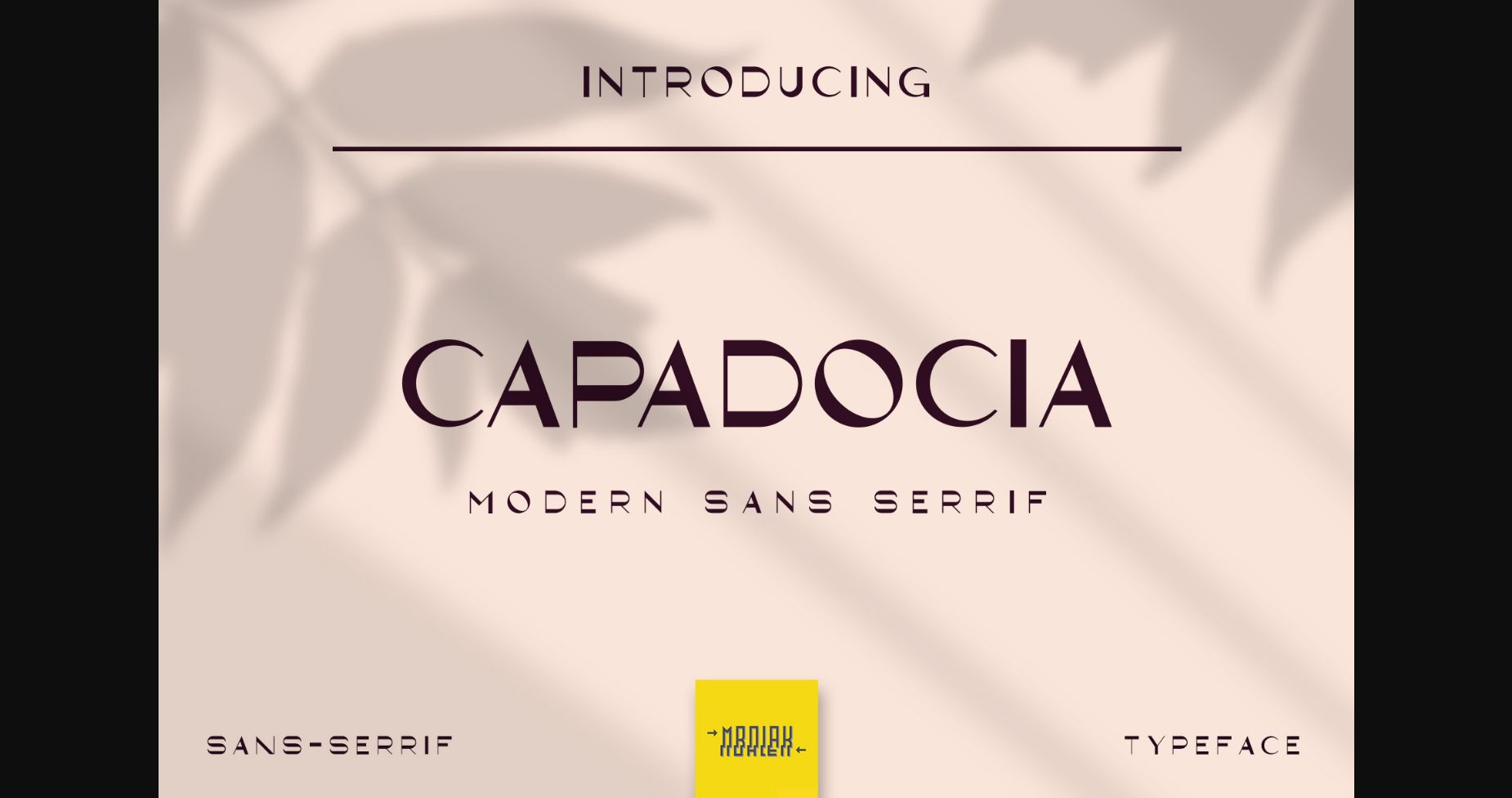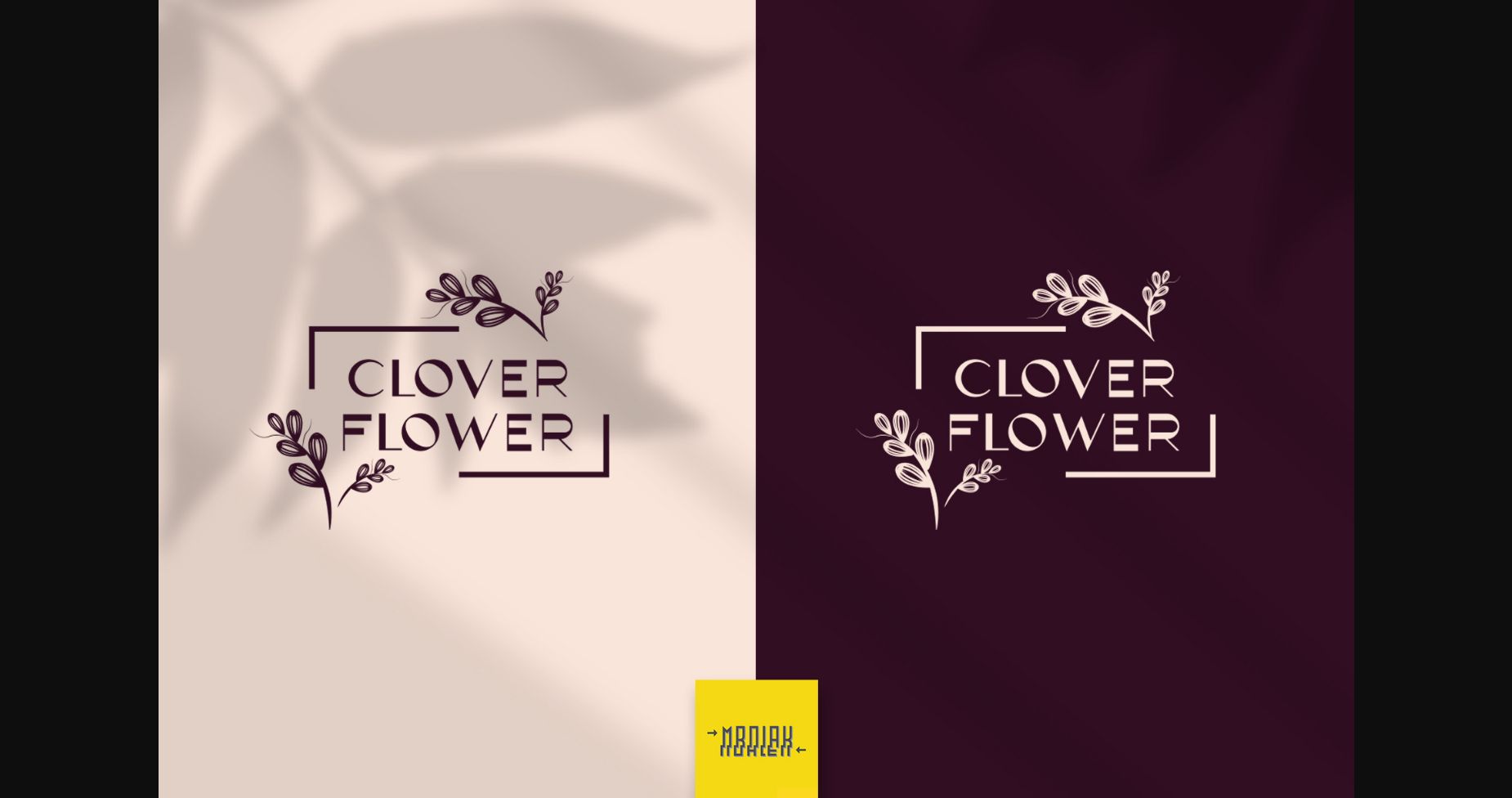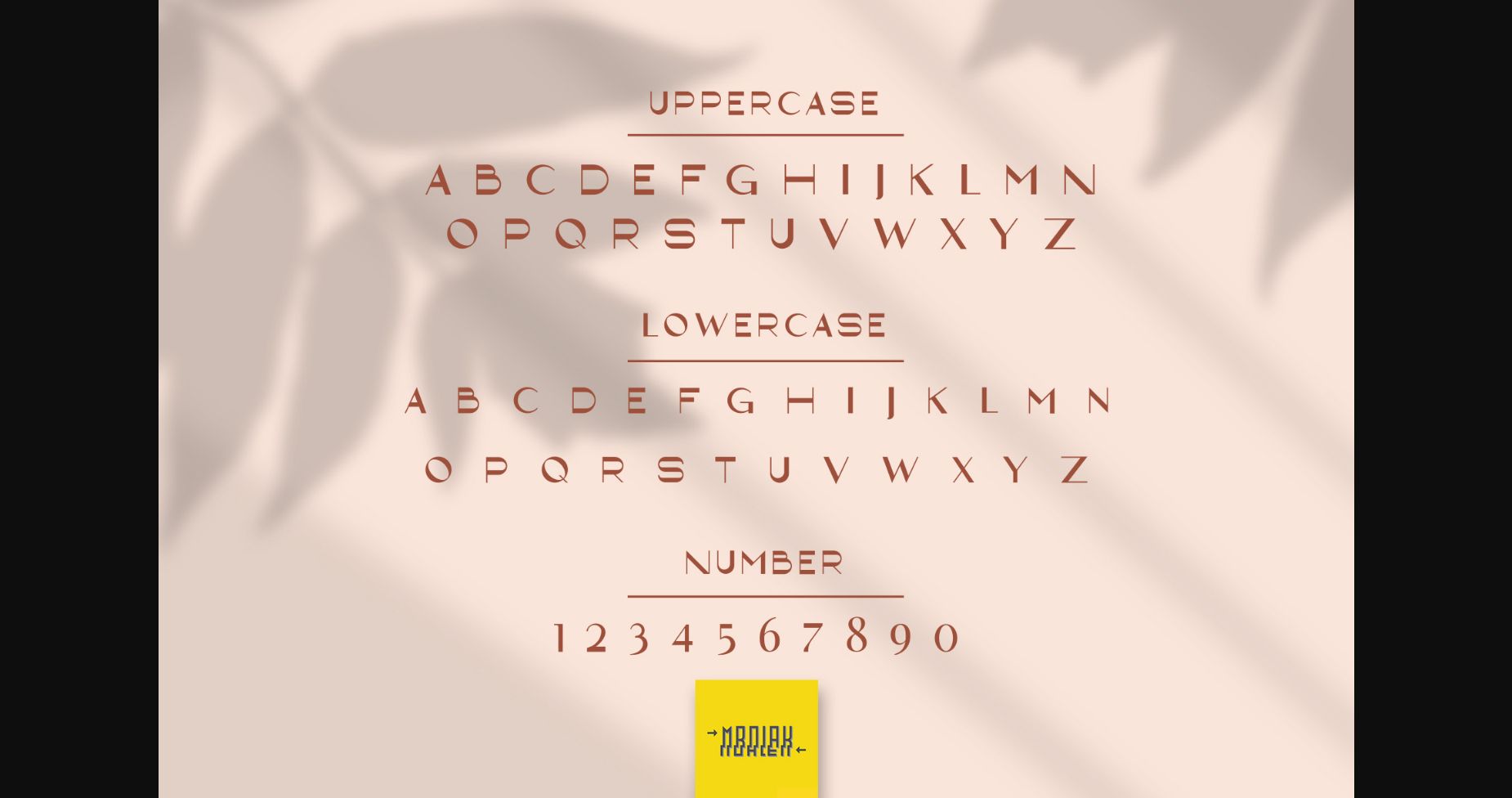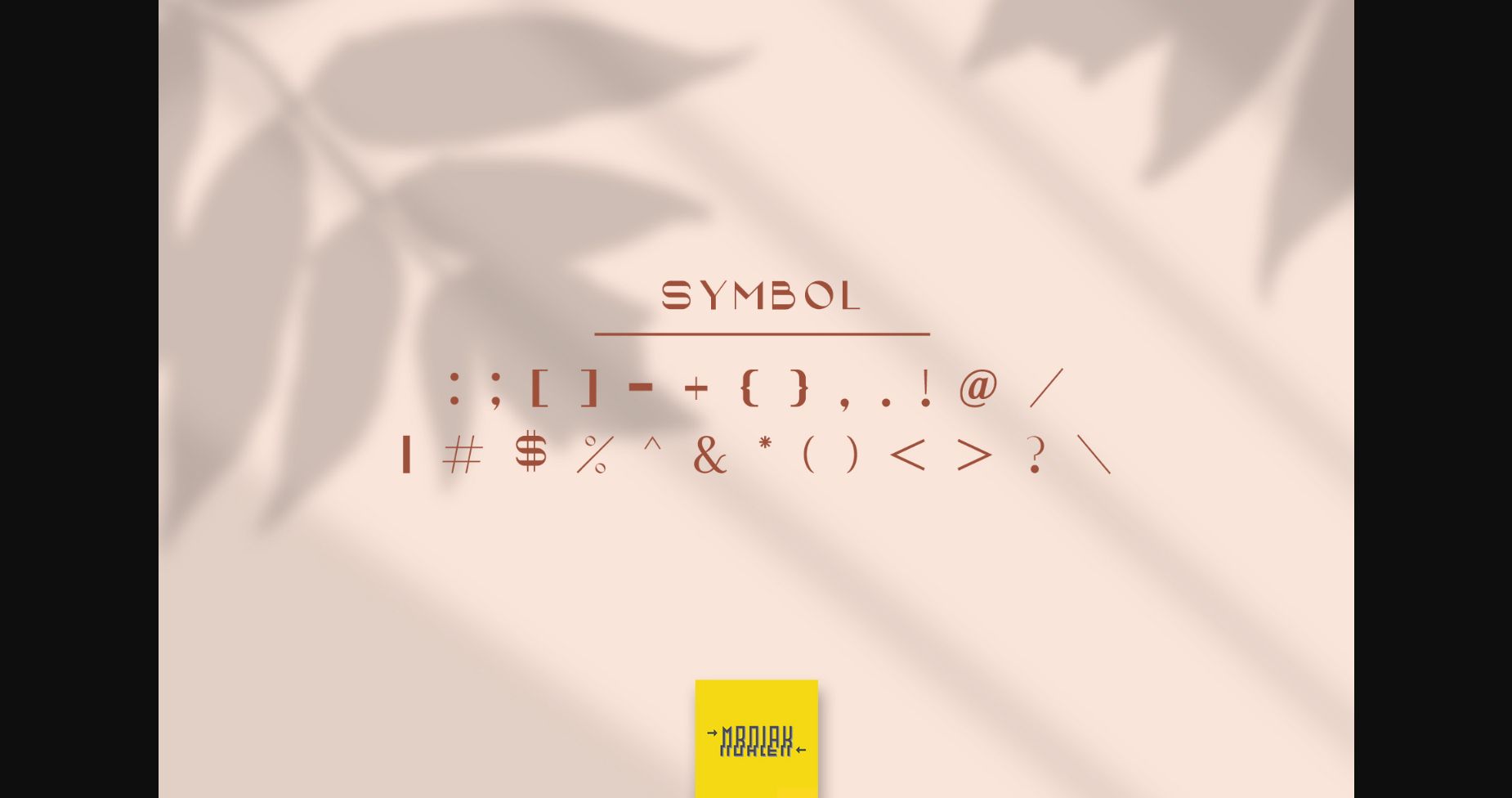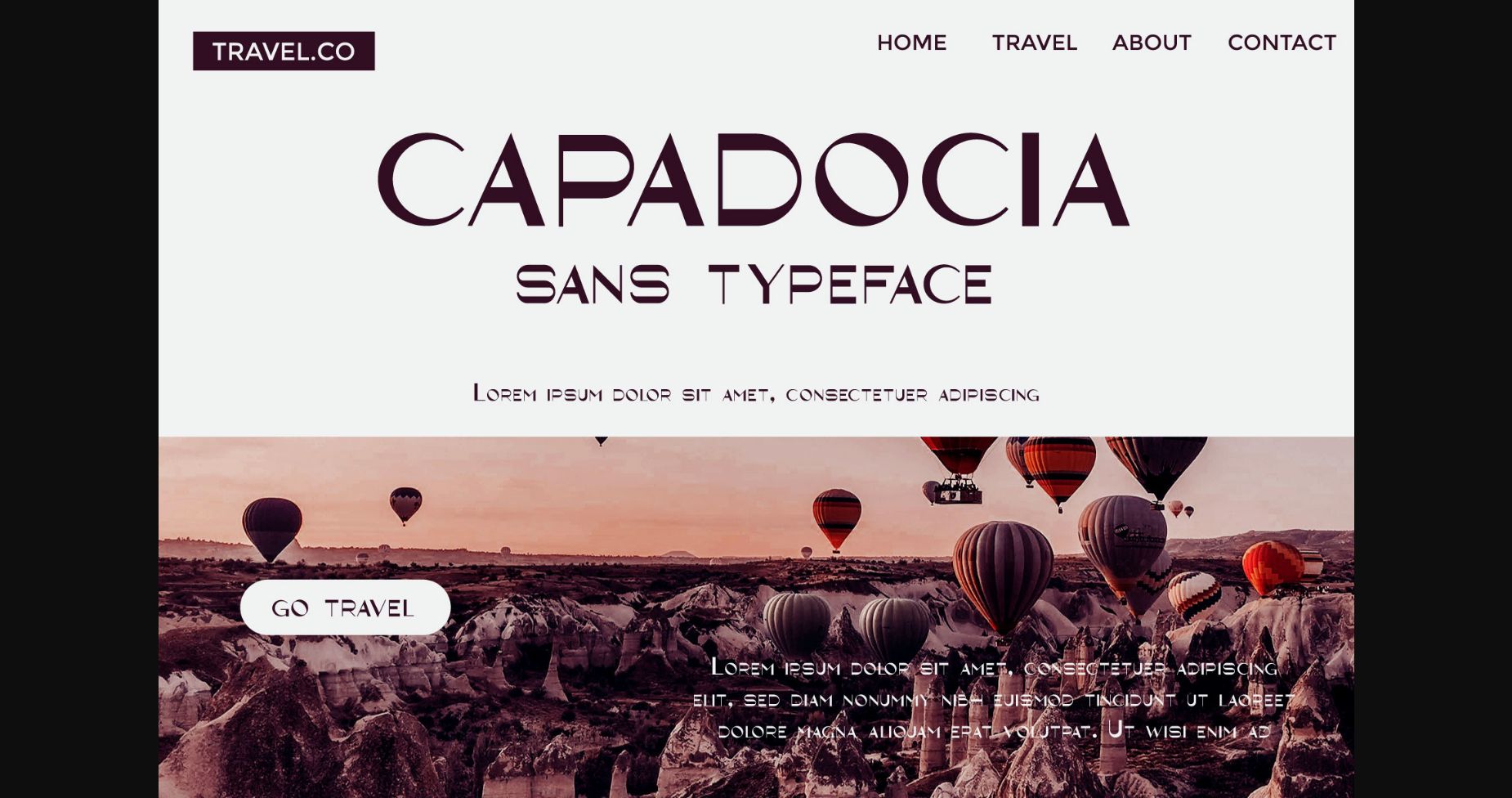
About Capadocia Font
Capadocia is a modern, clean and luxurious sans serif font. It will elevate a wide range of crafting ideas, from cards, to branding, labels and much more.